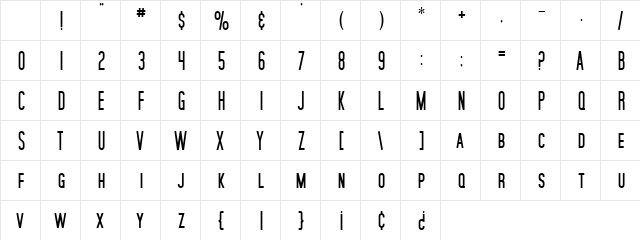
Complete SF Movie Poster Regular glyph index. Displaying only characters natively supported by SF Movie Poster Regular font.
SF Movie Poster is a composed and adaptable typeface that performs quietly and consistently across a wide range of design contexts.